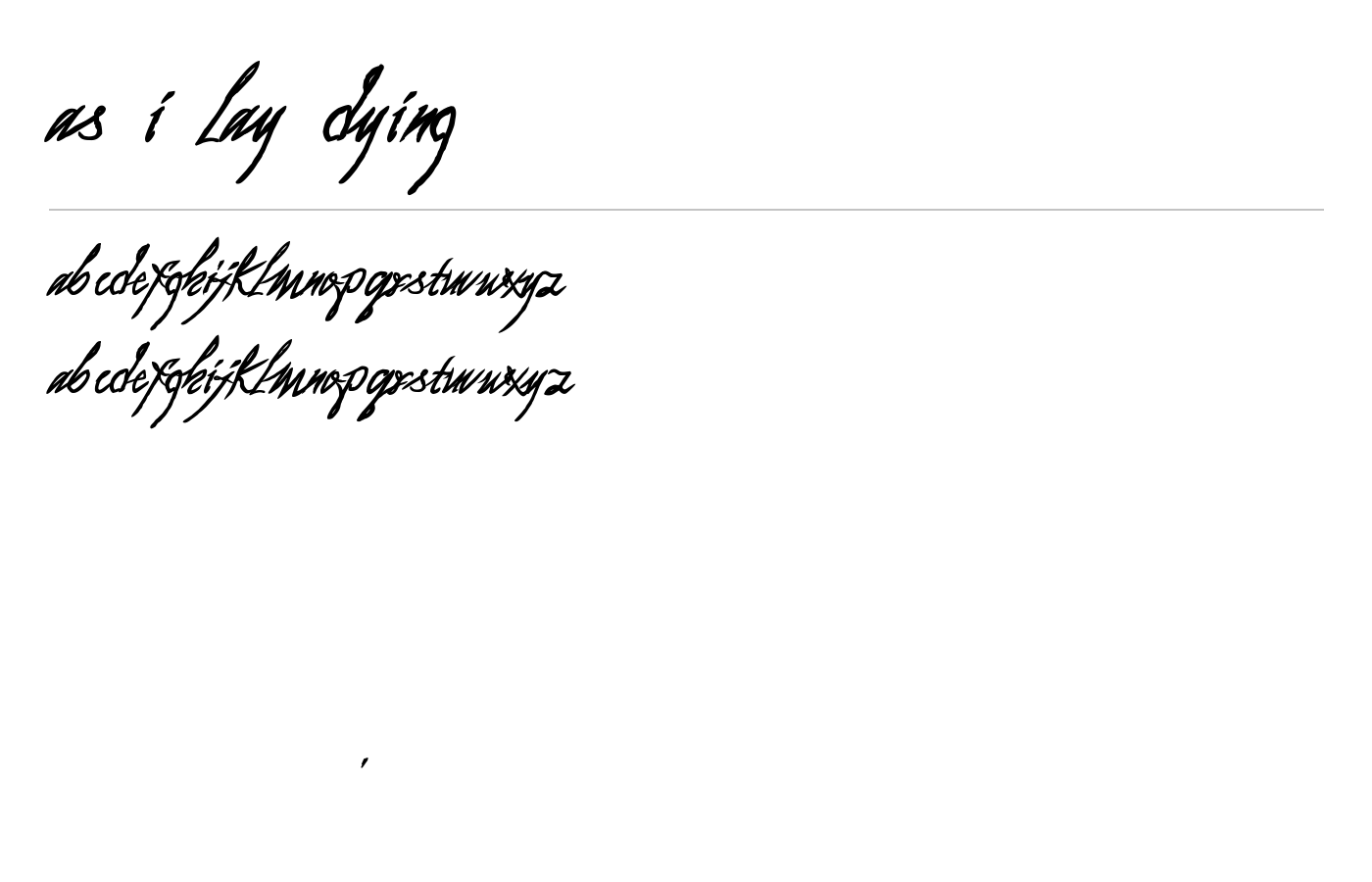
As I Lay Dying is an expressive handwritten script font with a raw, edgy feel. Its sharp, irregular strokes and dynamic, slightly condensed letterforms create a sense of urgency and emotion, making it ideal for artistic, alternative, or dramatic branding and design projects. This font works best in headlines, posters, or album covers where a bold, personal touch is desired.
as i lay dying Font
About as i lay dying Font